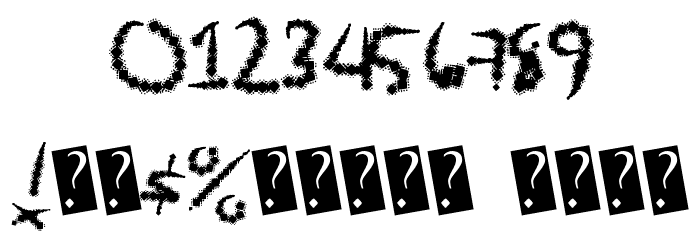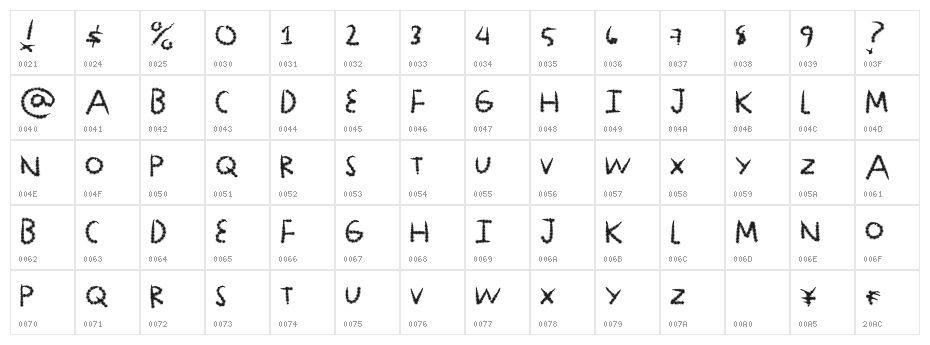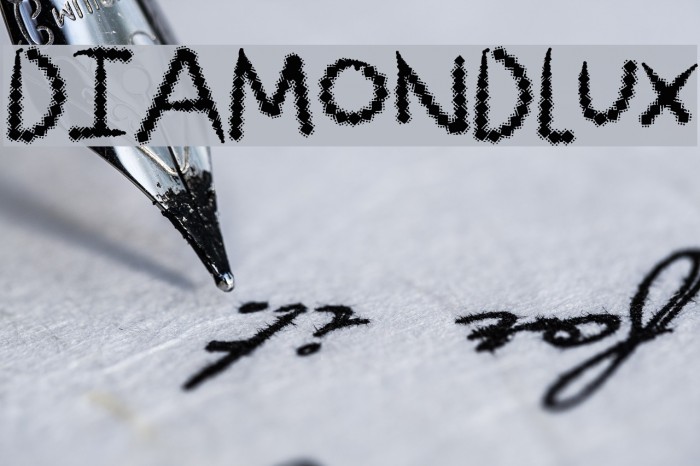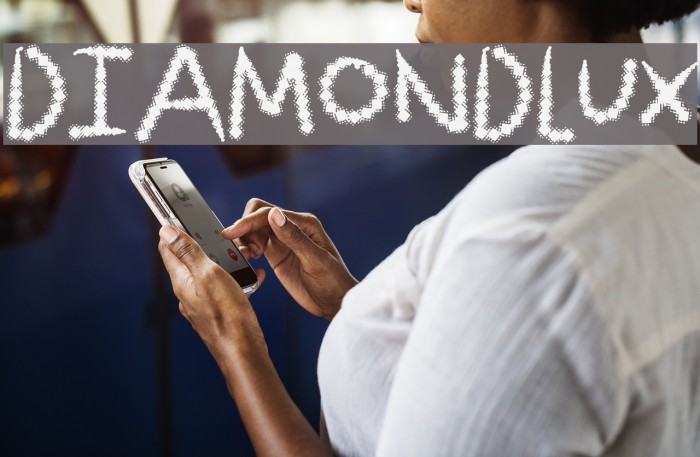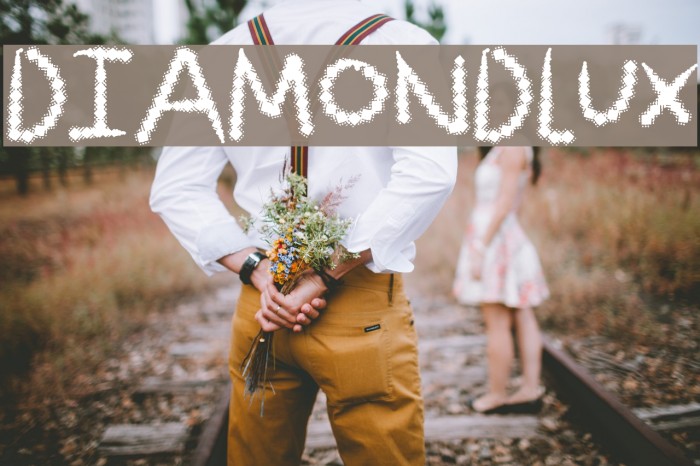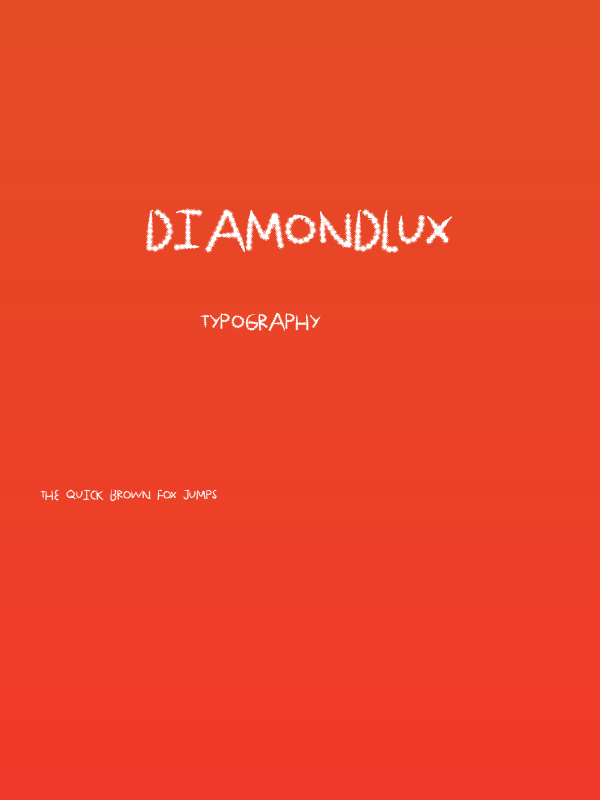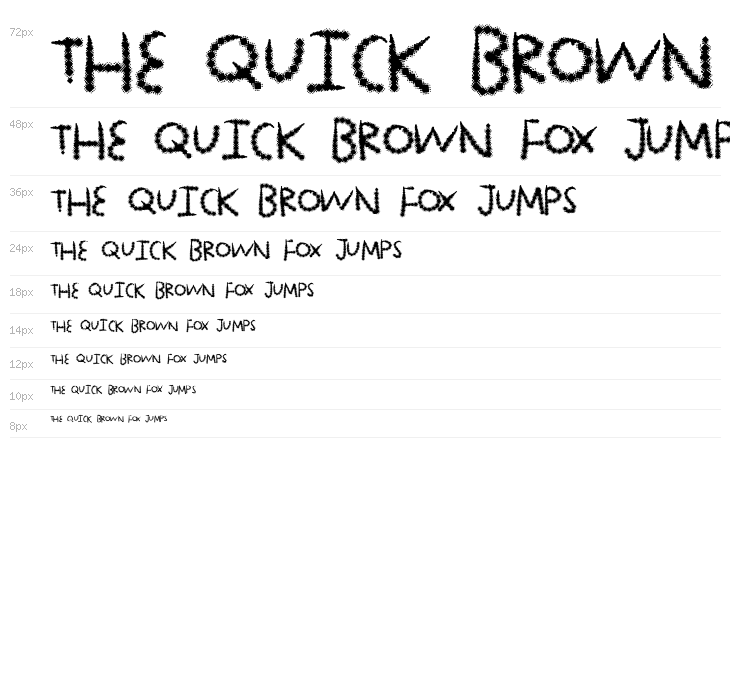
DiamondLux Font
DiamondLux Description
This font features a unique, textured style that resembles a hand-drawn or sketched appearance. The characters are bold and have a rough, uneven outline that gives them a dynamic and energetic feel. The uppercase and lowercase letters maintain a consistent style, with slightly exaggerated curves and angles that add to the overall artistic impression. Numbers and special characters follow the same design principles, ensuring a cohesive look across all elements. The font's distinctive texture makes it stand out, ideal for creative projects that require a touch of individuality and flair.
| Overall Style | Artistic, Creative |
| Proposed Projects | Ideal for posters, album covers, artistic branding, and creative digital content. |